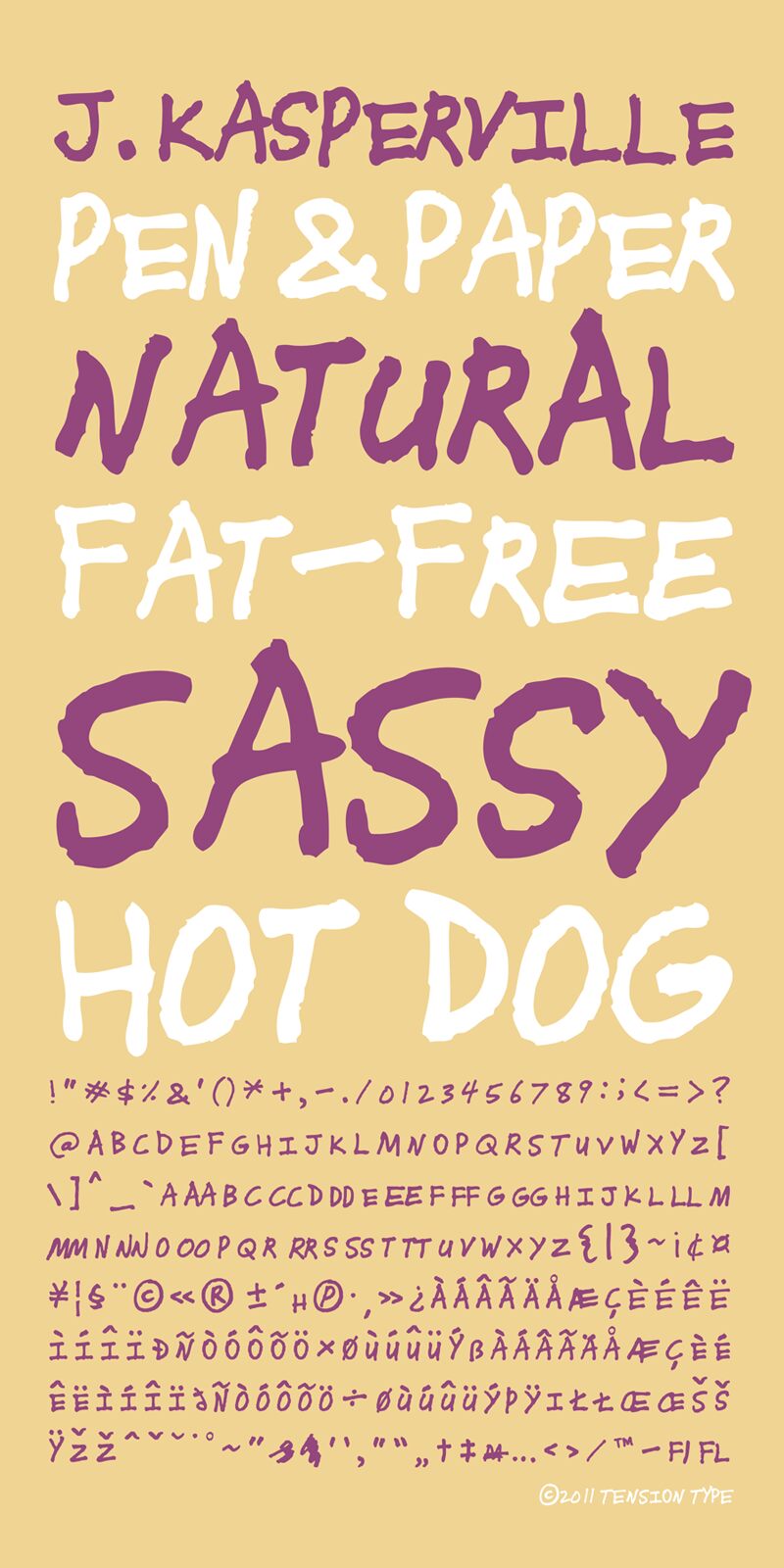
J. Kasperville from Tension Type is a free handwritten display font with the unruly force of marker lettering. Its broad, uneven strokes shift sharply in width, leaving pointed joins, blunt ends, and a restless silhouette. The letters lean and jostle at different angles, yet their dense forms keep the overall impression forceful.
It suits horror posters, punk flyers, and rebellious music merchandise. On skate branding or youth event graphics, the rough lettering can become a hand-drawn emblem rather than a neutral title.